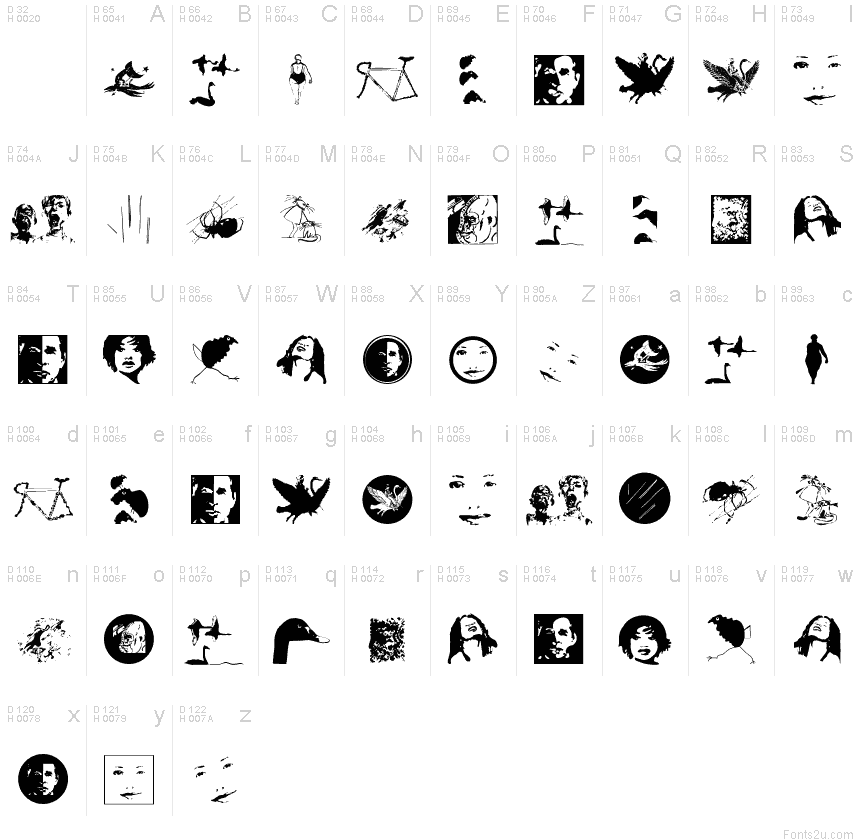
VectorLaborTest by M. Klein is a free silhouette dingbat font built from figures, animals, and stark portrait imagery. The shapes are solid and rough-edged, with cutout details that suggest stencil work and photocopied graphics. Some images turn from playful to unsettling.
Designers working in underground music and alternative fashion could draw on this mix for gig posters, album art, and apparel. Because each symbol reads as a self-contained image or emblem, the set can become the bold, unsettling central image in editorial illustration and horror-themed event graphics rather than neutral lettering.